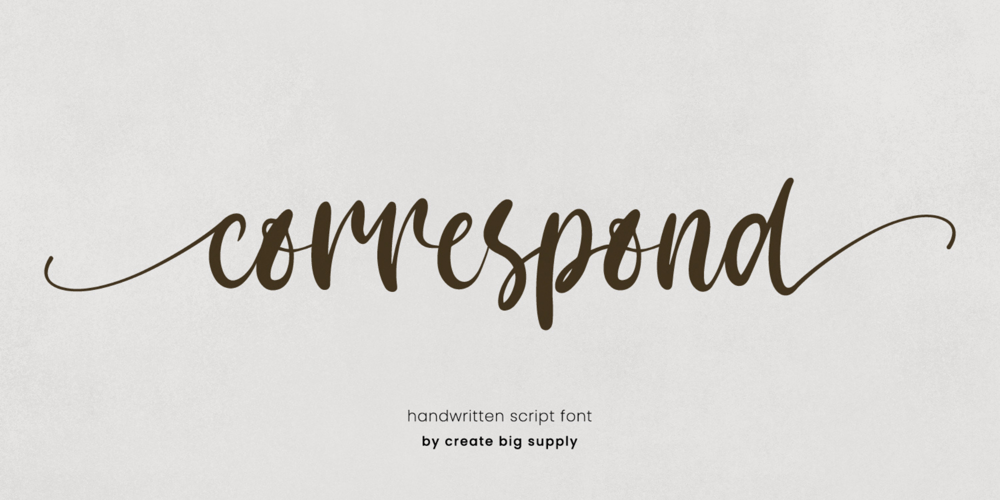
Correspond Font Family was designed by Irpan Maulana and published by Create Big Supply. Correspond contains 1 styles and family package options. Create beautiful invitations, eye-catching logos, engaging social media posts, and more with Correspond. Its seamless integration of uppercase and lowercase characters, along with its extensive range of numbers and punctuations, ensures a harmonious and cohesive look throughout your design.One of the key features of Correspond is its multilingual support, allowing you to express your creativity in various languages and reach a global audience. No matter the project, Correspond has you covered with its wide array of characters and symbols.Unlock the full potential of Correspond with its PUA encoding, granting you easy access to a wealth of alternate glyphs and ligatures. This enhances your design possibilities and lets you add your personal touch to every project.Experience the power of Correspond Script Font and elevate your typography game. Its seamless curves and elegant flourishes make it a timeless choice for any design. Discover the beauty of Correspond and let your creativity shine.